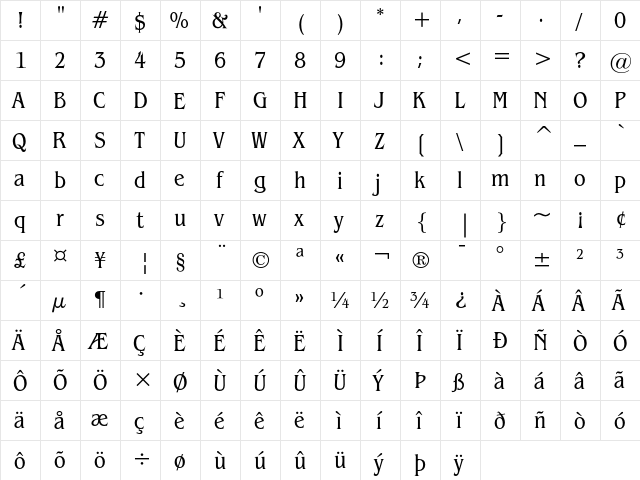
ITC Benguiat Book Condensed
Design Context for ITC Benguiat Typeface
ITC Benguiat takes a measured approach to typography — its balanced proportions and neutral character make it a reliable workhorse for both digital and print work. Its narrow stance lets it pack a punch even in space-constrained designs.